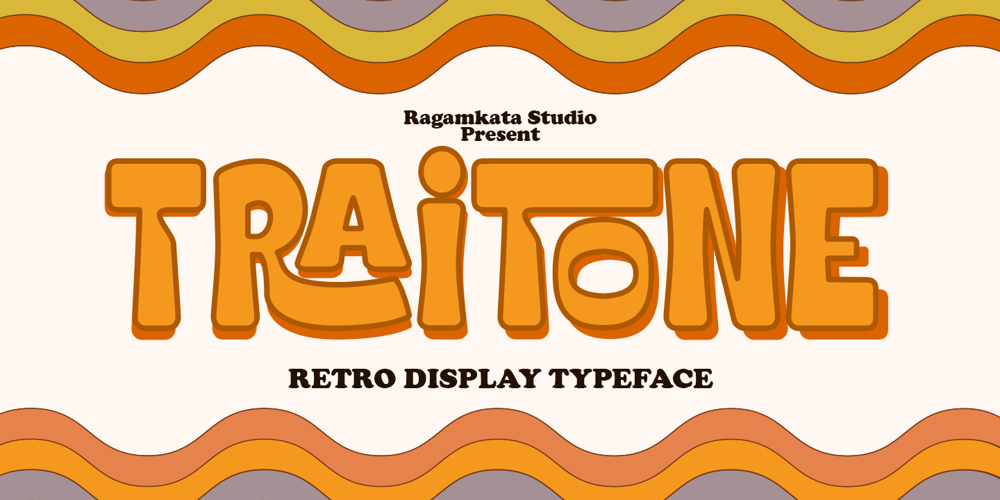
Traitone Font Family was designed by Yogiswhara Dio Prakoso Riadi and published by RagamKata. Traitone contains 1 styles and family package options. Traitone, a Retro Display font that is perfect for making your project looks even more fun! It’s rounded and curvy shape makes it more unique. Traitone is very ideal for variety design projects, such as posters, Invitations, greeting cards, logo, and many more. Milkyway will jolly up you and your audiences! Get this font now to magnify your design!Traitone font features : Ligatures & Alternates Letters, numbers, symbols, and punctuation No special software is required to use this typeface even work in Canva Multilingual Support Kindly do contact us if you have any questions, For more exclusive font, kindly please visit our studio “Ragamkata Studio” Enjoy crafting and make your ideas come to life!Thank you, Ragamkata Studio